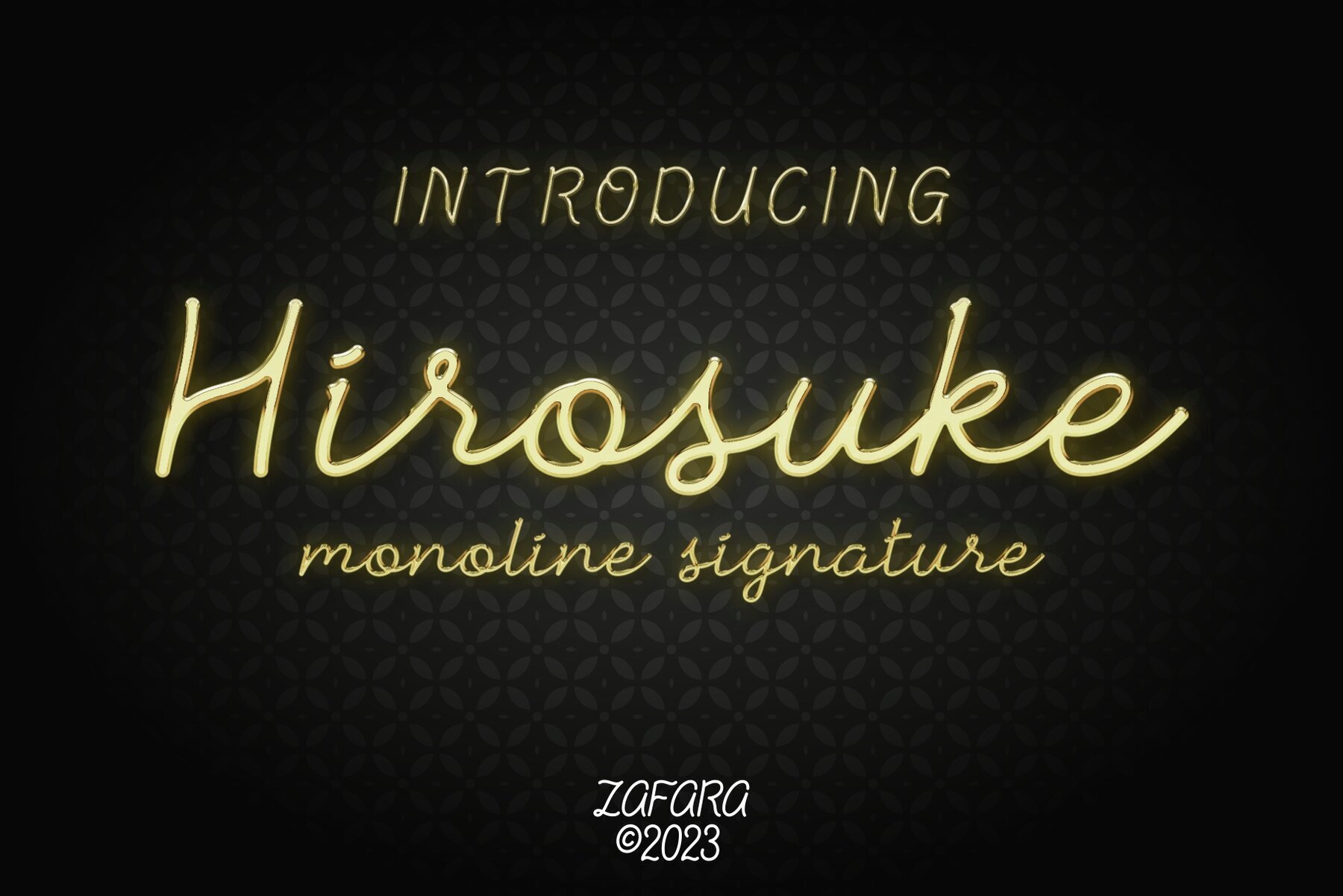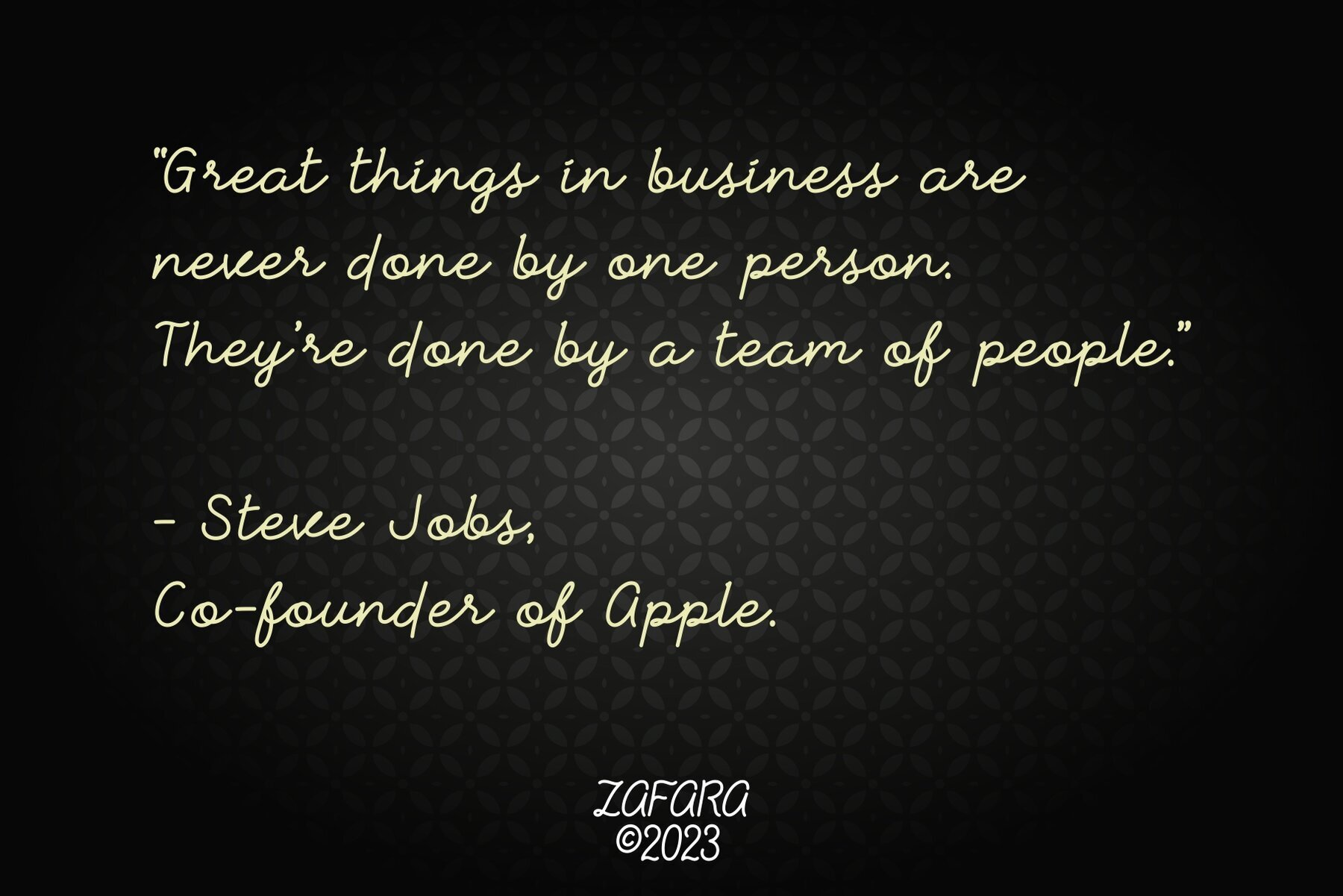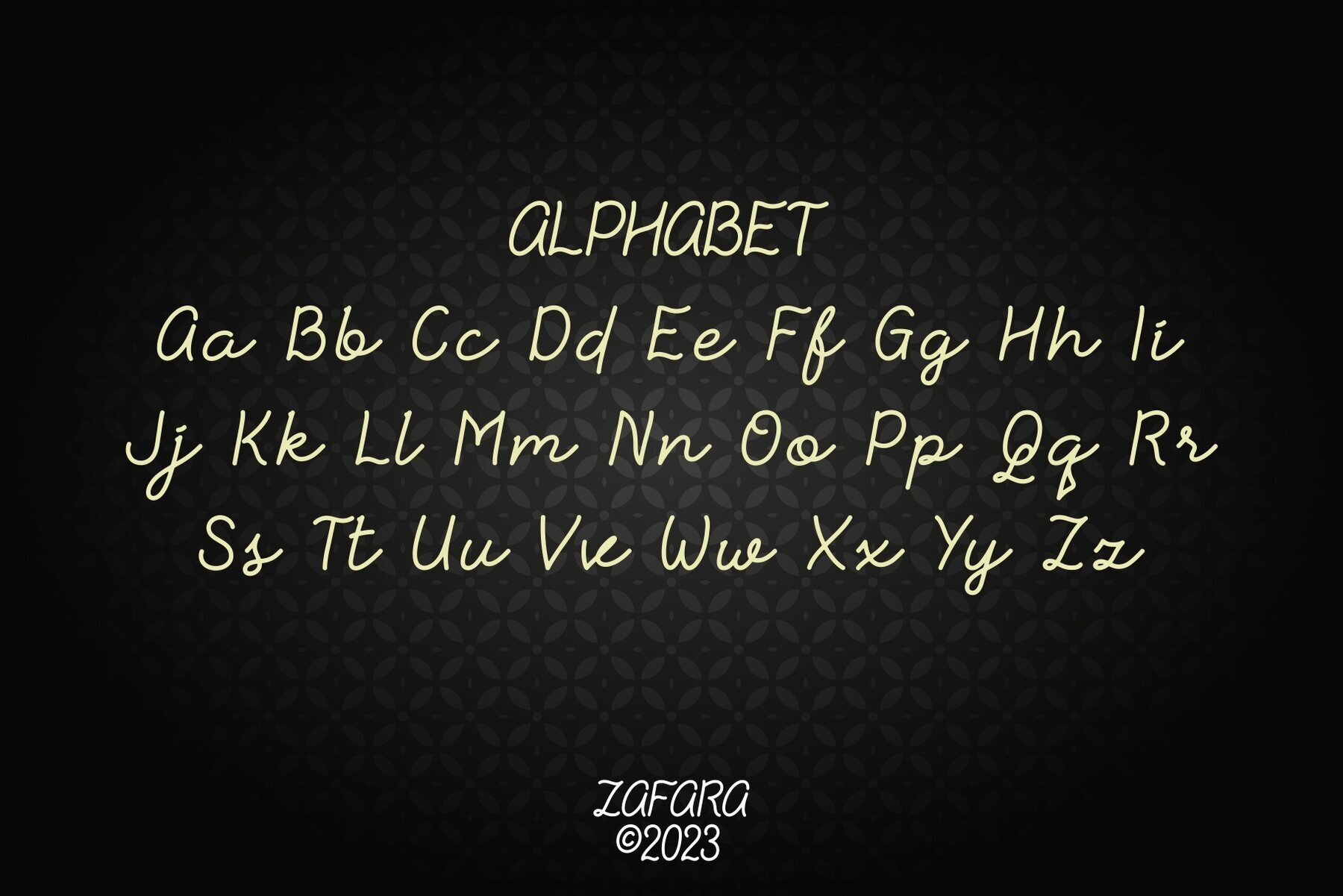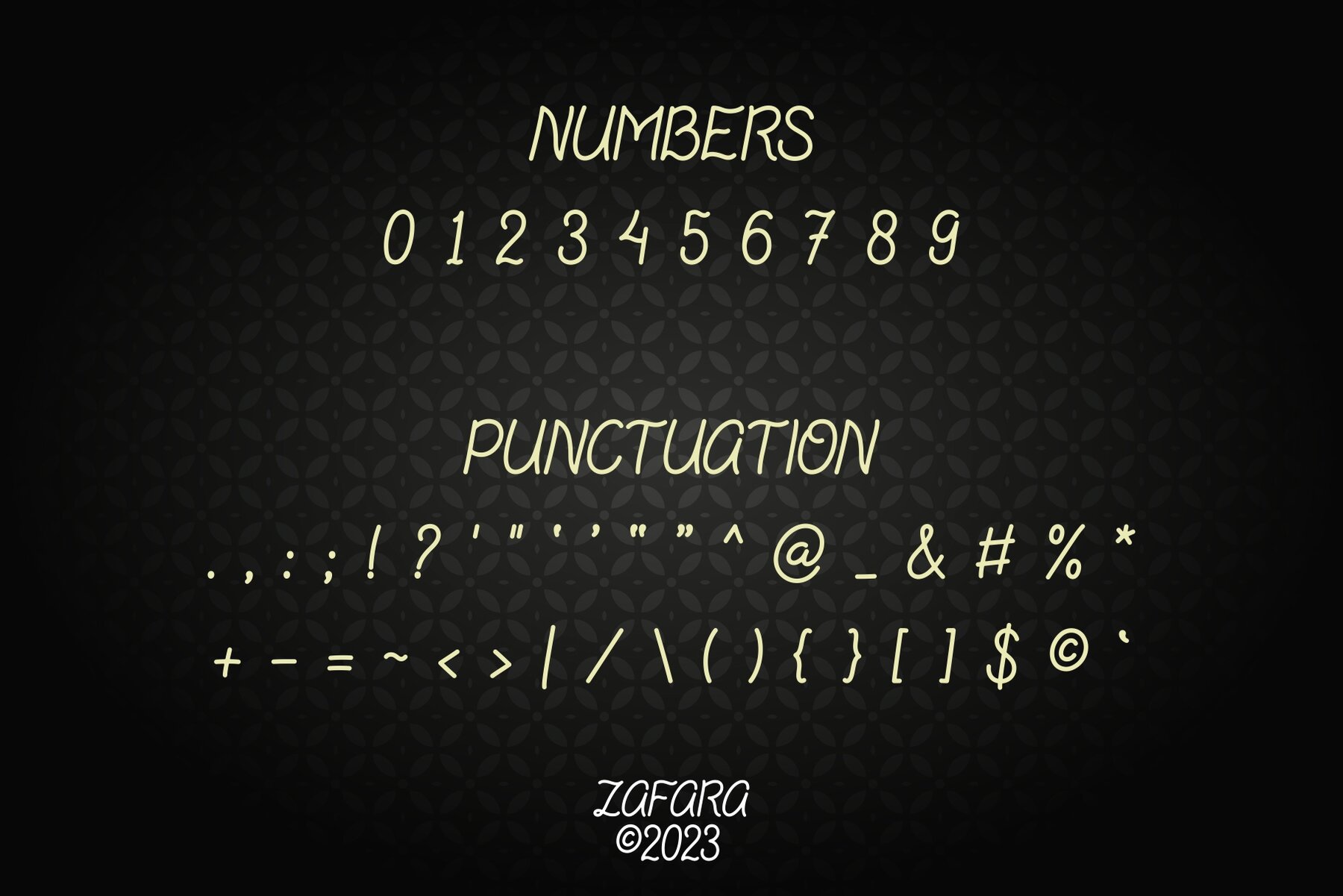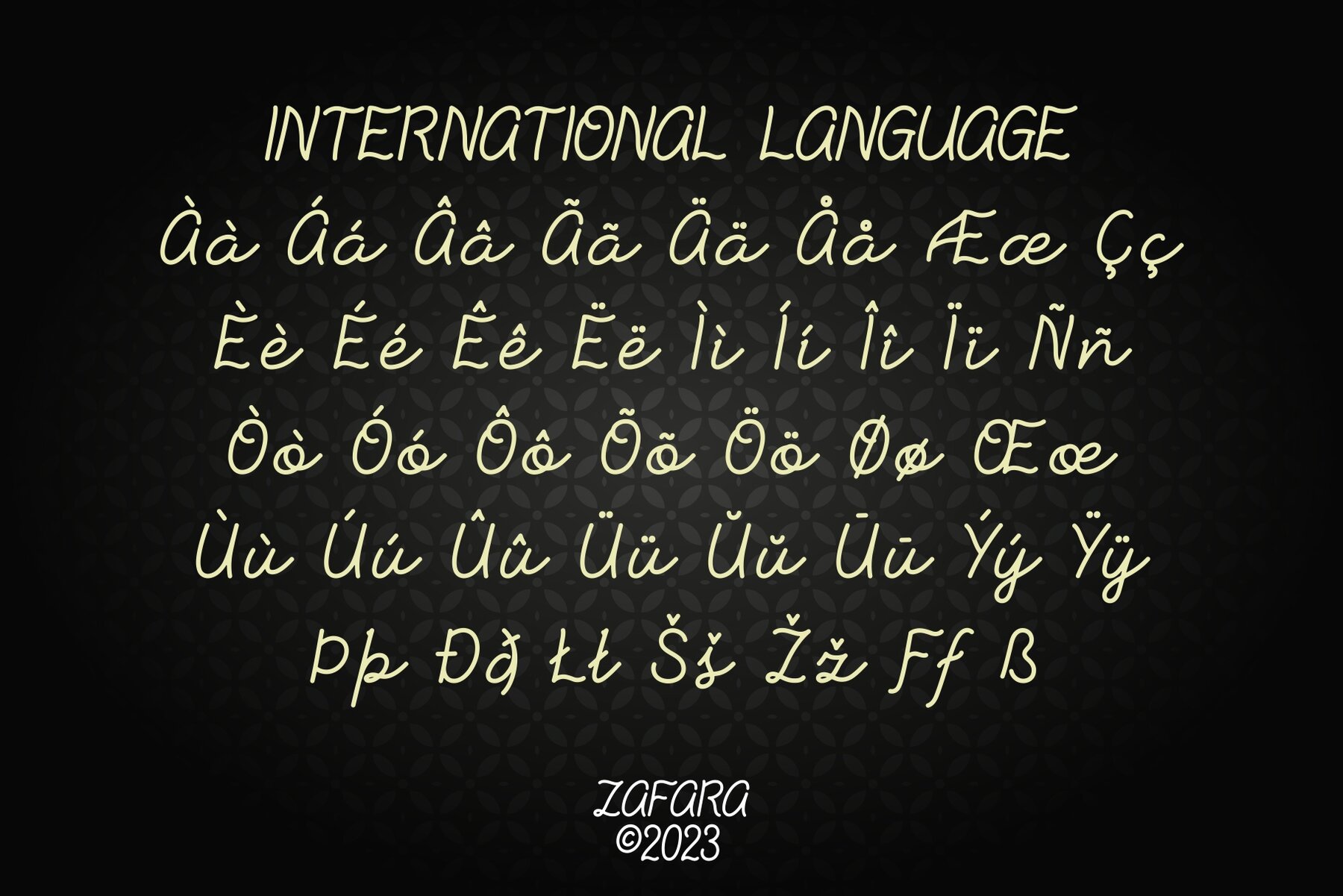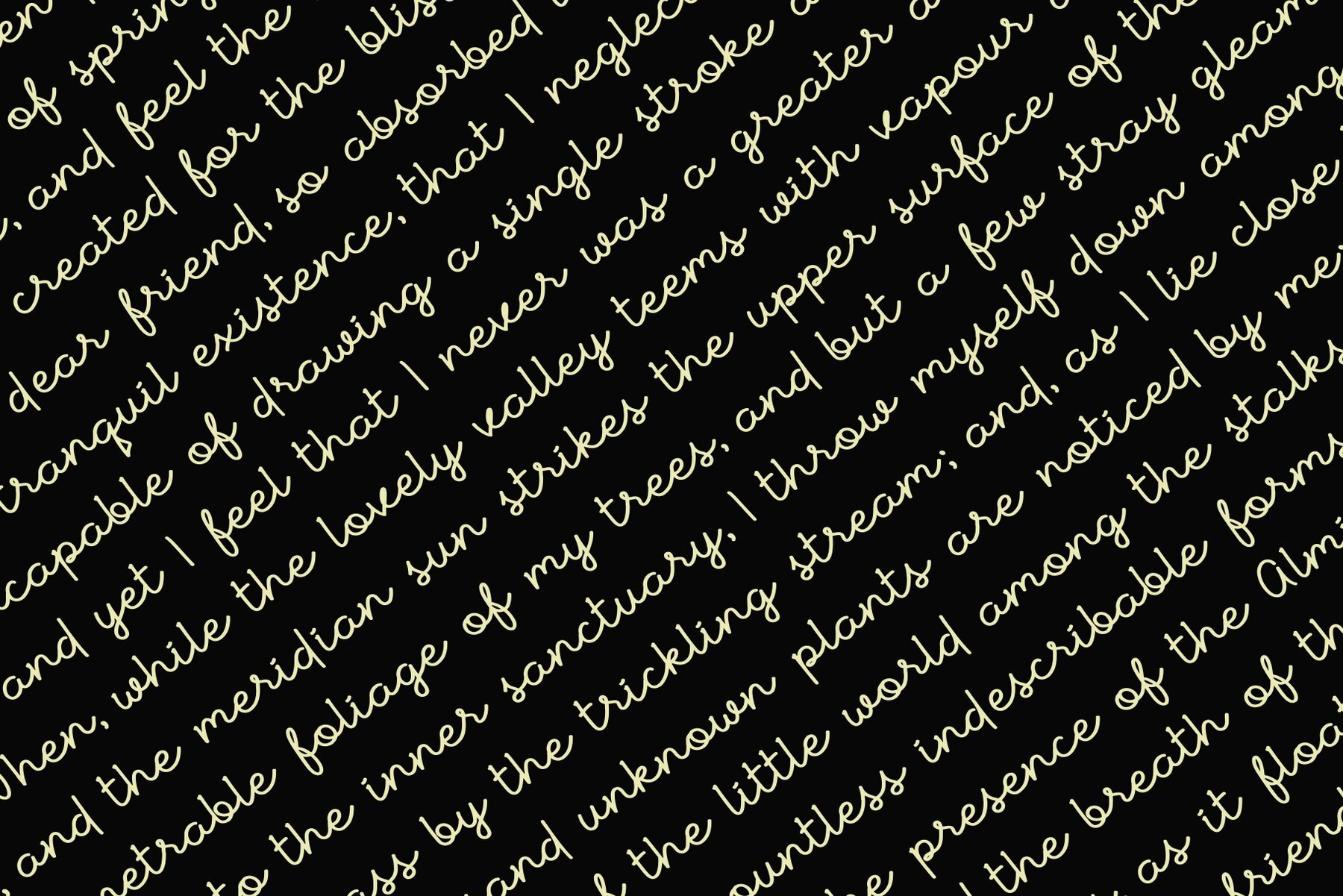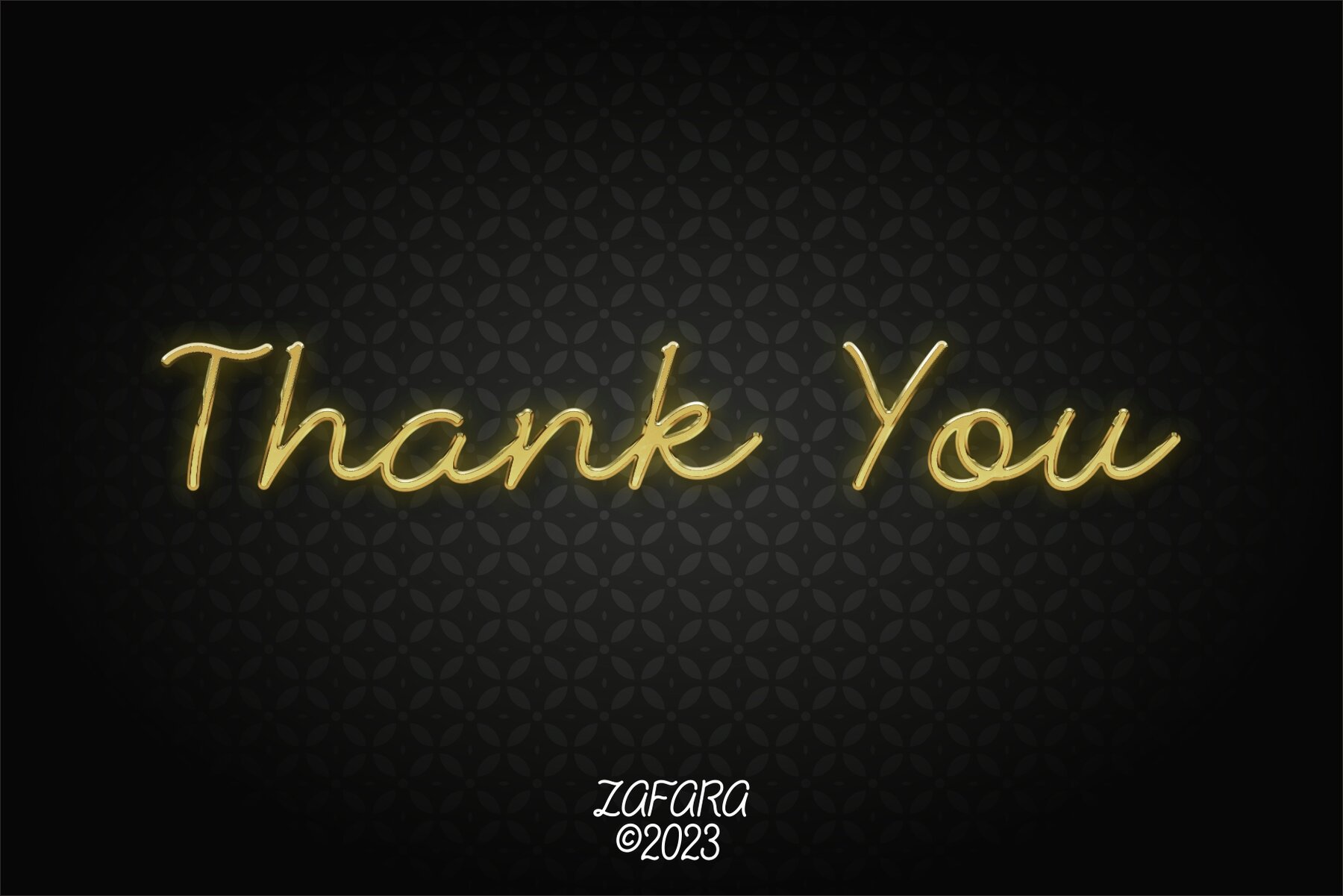
Hirosuke Font
Hirosuke Regular
Hirosuke is designed to capture the essence of handwritten script, making it ideal for personal branding, invitations, and any design that calls for a touch of individuality. Whether you're aiming for elegance, sophistication, or whimsy, Hirosuke adapts to your needs.Hirosuke: Handwritten Script Font for Personal Touch